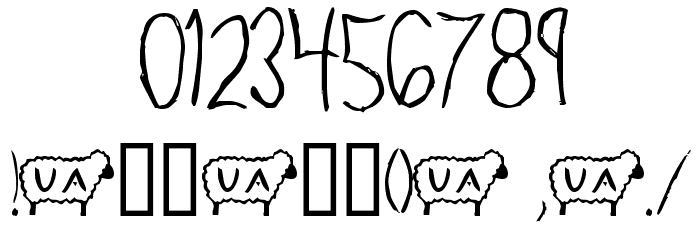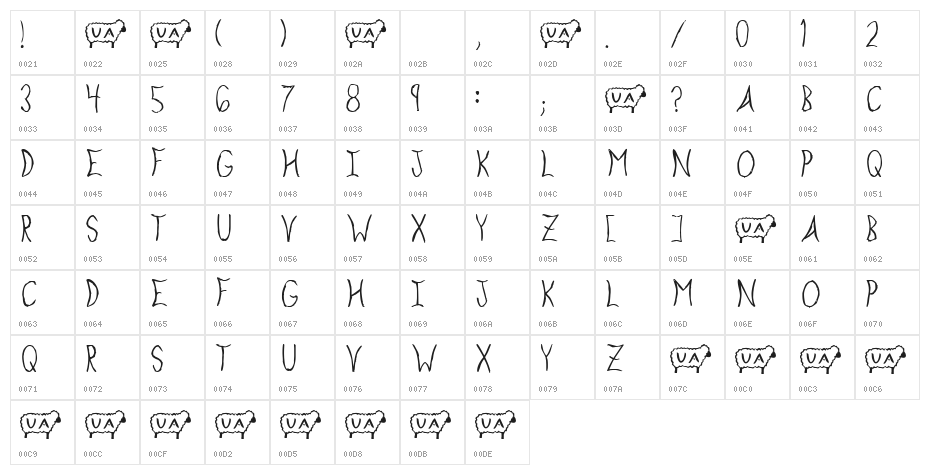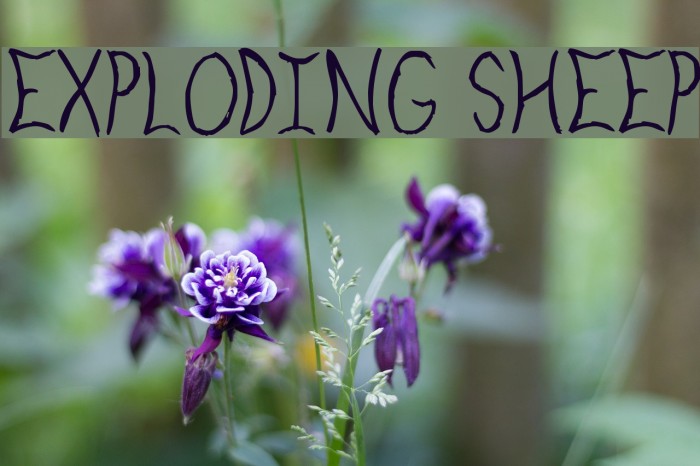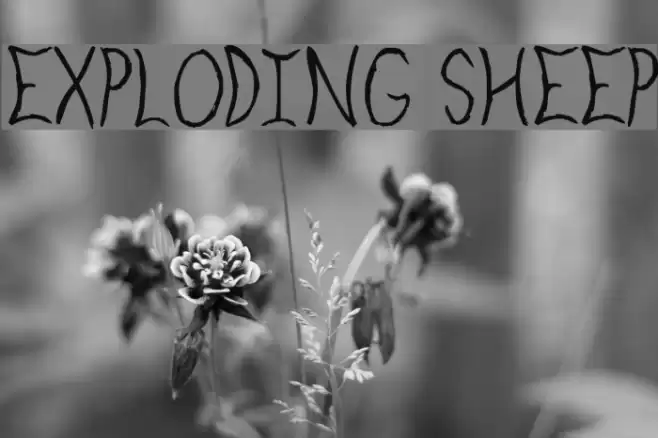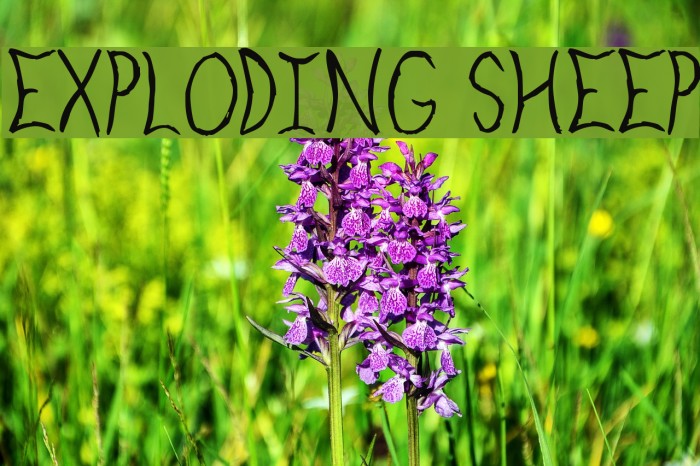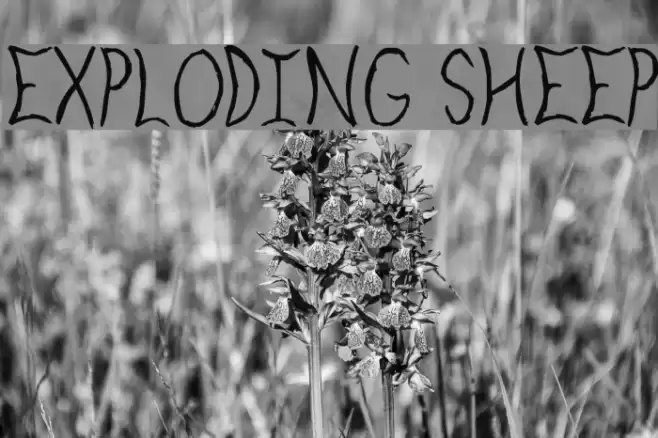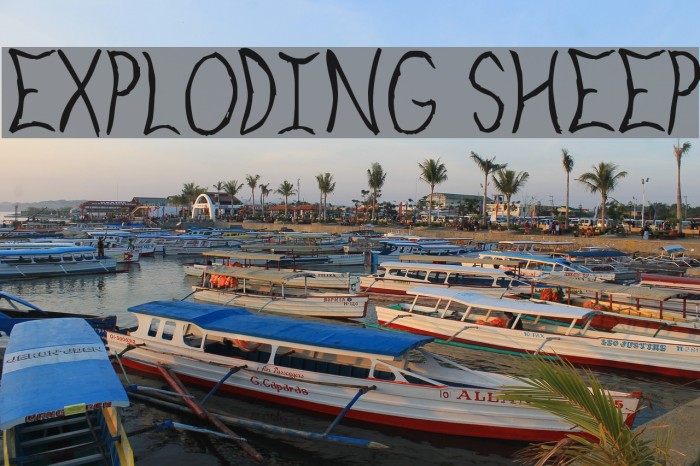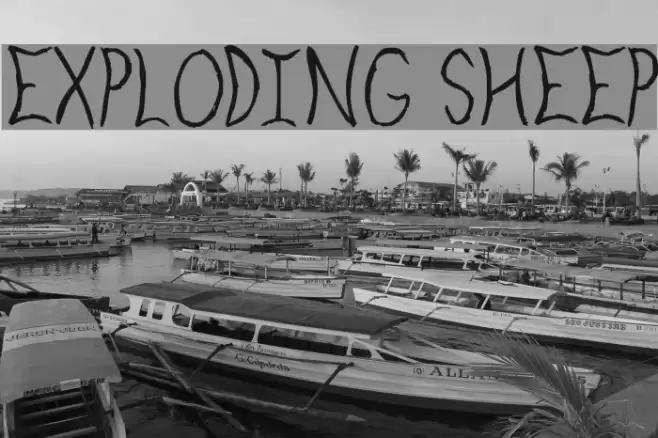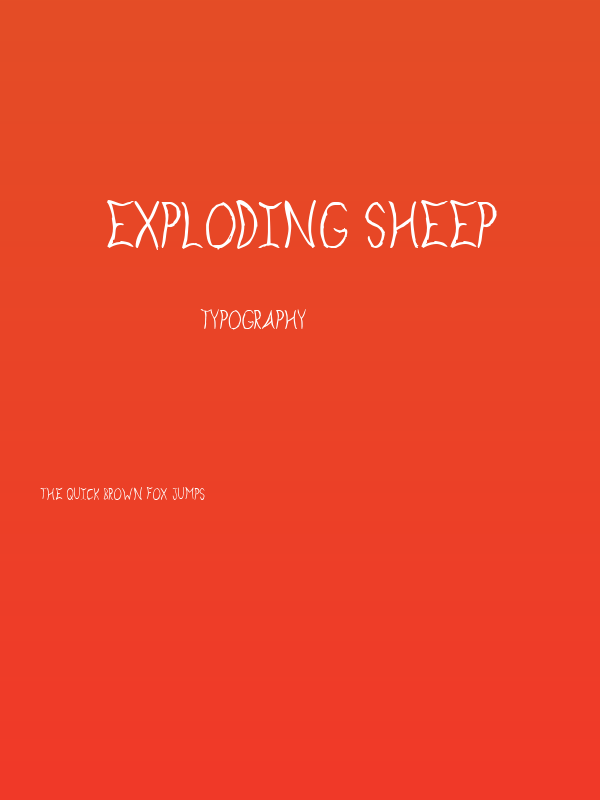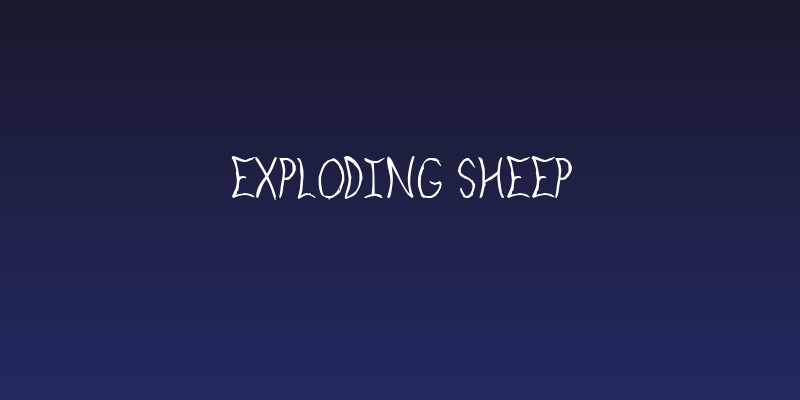
Exploding Sheep Font
Exploding Sheep Description
This font features a quirky, hand-drawn style with irregular strokes and playful curves. The characters have a whimsical, slightly chaotic appearance, reminiscent of doodles or sketches. The uppercase and lowercase letters maintain a consistent style, with exaggerated serifs and uneven lines that add to the font's charm. Numbers follow the same playful design, making them stand out with their unique shapes. Special characters are creatively integrated, adding to the font's overall whimsical aesthetic. This font is perfect for projects that require a fun and informal touch.
| Proposed Projects | Ideal for children's books, playful branding, casual invitations, and creative posters. |